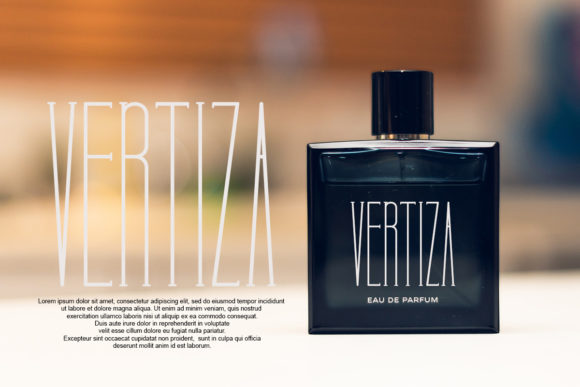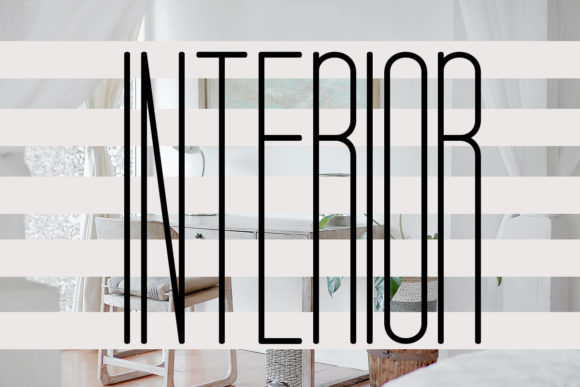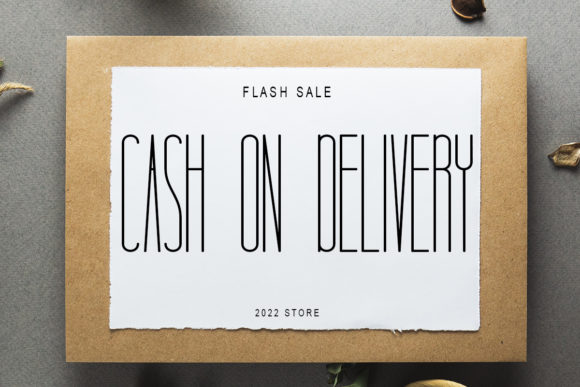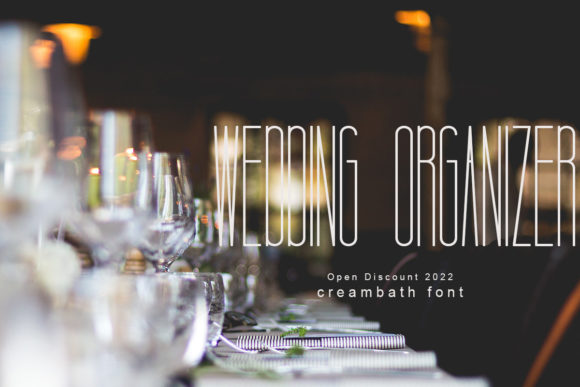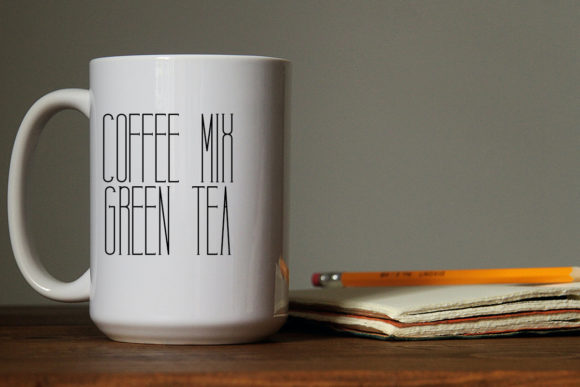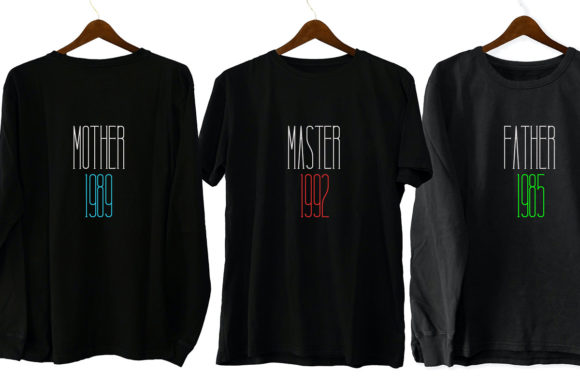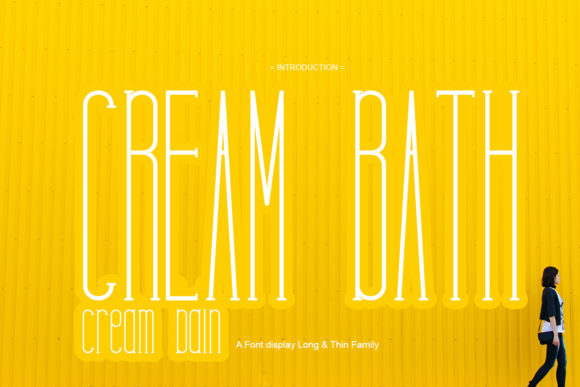
Cream Bath Font: Elevate Your Creations with a Trendy and Stylish Display Font
Are you looking for a font that can add a touch of elegance and sophistication to your designs? Look no further than the Cream Bath Font. This display font is designed to provide stable transitions that allow you to feel different sensations in the work you are doing. With its trendy and stylish aesthetic, Cream Bath Font is the perfect choice for designers and crafters who want to elevate their creations.
What Makes Cream Bath Font Special?
Cream Bath Font is a unique and versatile font that offers a range of features that set it apart from other fonts. Here are some of the key benefits of using Cream Bath Font:
- Stable Transitions: The font’s design allows for smooth and stable transitions between letters, making it perfect for creating visually appealing text.
- Trendy and Stylish: Cream Bath Font has a modern and stylish aesthetic that will add a touch of sophistication to any design.
How to Use Cream Bath Font in Your Designs
Cream Bath Font is a versatile font that can be used in a variety of design projects. Here are some ideas for using Cream Bath Font:
- Branding and Logo Design: Use Cream Bath Font to create a unique and memorable logo for your brand.
- Social Media Graphics: Add a touch of elegance to your social media graphics with Cream Bath Font.
- Invitations and Stationery: Use Cream Bath Font to create beautiful and sophisticated invitations and stationery.
- Packaging Design: Add a touch of style to your packaging design with Cream Bath Font.
Tips for Getting the Most Out of Cream Bath Font
Here are some tips for getting the most out of Cream Bath Font:
- Experiment with Different Sizes: Cream Bath Font looks great in a variety of sizes, so don’t be afraid to experiment to find the perfect size for your design.
- Pair with Other Fonts: Cream Bath Font pairs well with a range of other fonts, so try pairing it with different fonts to create a unique look.
Why Designers and Crafters Love Cream Bath Font
Cream Bath Font has become a favorite among designers and crafters due to its unique combination of style and versatility. Here are some reasons why designers and crafters love Cream Bath Font:
- Unique Aesthetic: Cream Bath Font has a unique and stylish aesthetic that sets it apart from other fonts.
- High-Quality Design: Cream Bath Font is designed to provide high-quality text, making it perfect for use in a variety of design projects.
In conclusion, Cream Bath Font is a trendy and stylish display font that is perfect for designers and crafters who want to elevate their creations. With its stable transitions, PUA encoding, and unique aesthetic, Cream Bath Font is a versatile font that can be used in a variety of design projects. Whether you’re creating branding and logo designs, social media graphics, invitations and stationery, or packaging design, Cream Bath Font is the perfect choice.